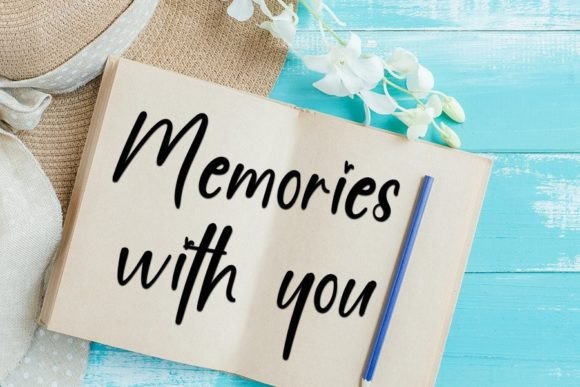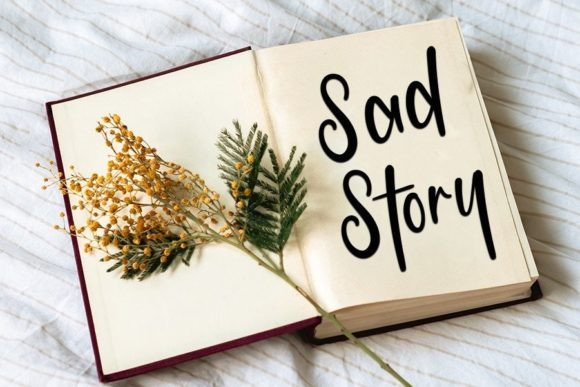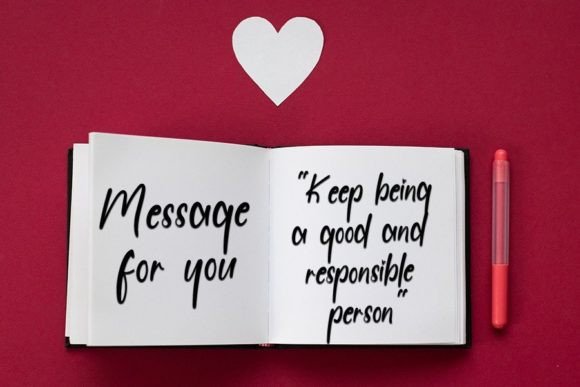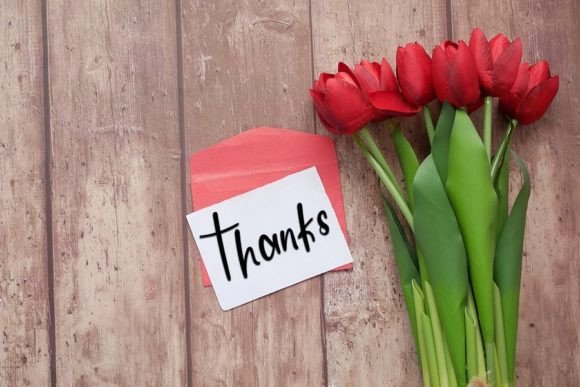
The End Font
About The End Font
**”The End”** is not just a font; it’s an embodiment of elegance and refinement, meticulously crafted to add a touch of sophistication to your favorite projects. Its neat and beautiful handwritten style sets it apart, making it the ideal choice for a wide array of creative endeavors. Whether you’re designing invitations, posters, logos, or any other project, “The End” effortlessly enhances your designs, transforming them into visually captivating experiences.
Picture your invitations graced with the neat and beautiful characters of “The End,” each letter exuding a sense of refinement and grace. Envision your posters, each word carefully crafted in this font, capturing attention with its distinct and elegant charm. Logos gain a unique identity when designed with “The End,” leaving a lasting impression on your audience.
“The End” isn’t just a font; it’s a design essential that adds a touch of timeless elegance to your projects. Its clean and beautiful handwriting creates an allure, drawing admiration wherever it’s used. The font’s distinct and timeless style becomes a signature element, reflecting your dedication to quality and creativity.
In a world where aesthetics are paramount, “The End” stands out as a symbol of sophistication and style. Its elegant touch adds a layer of refinement to your designs, making them memorable and impactful. When you choose “The End” for your projects, you’re not just selecting a font; you’re making a statement—a statement of elegance, creativity, and attention to detail.
So, whether you’re a professional designer aiming for perfection or an individual with a passion for creative expression, “The End” is your trusted companion. It’s more than just a font; it’s an opportunity to infuse your designs with the elegance of handwritten beauty. Let “The End” be the brush that paints your imagination and the handwritten touch that transforms your designs into works of art. With “The End,” your projects are bound to shine with sophistication and timeless charm, leaving a lasting impression on anyone who experiences their beauty.